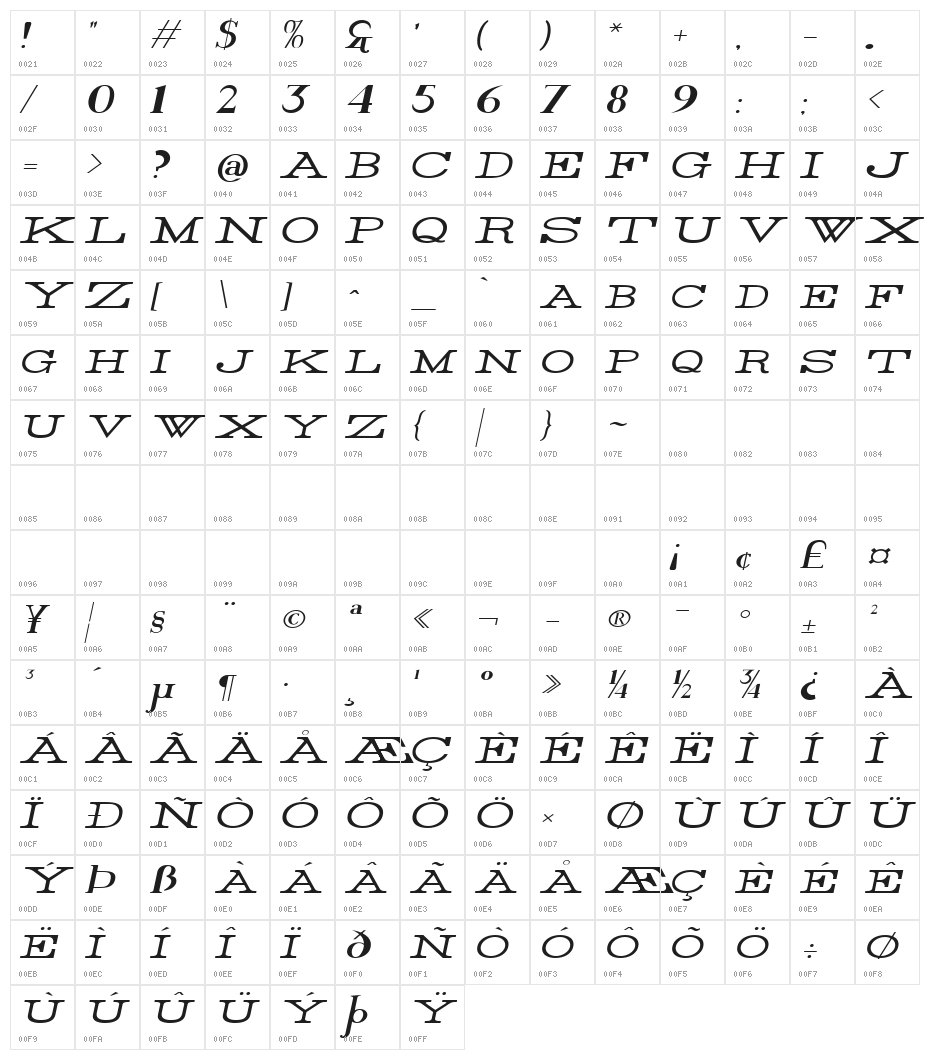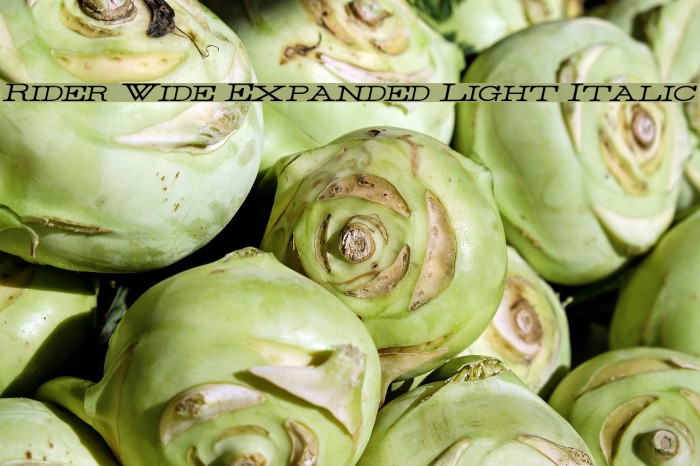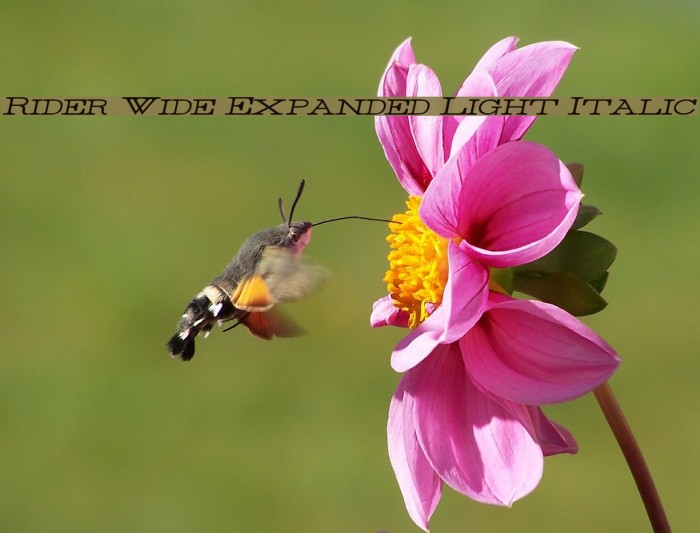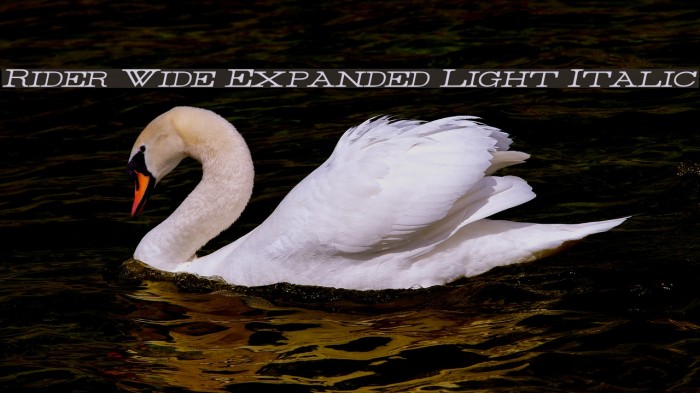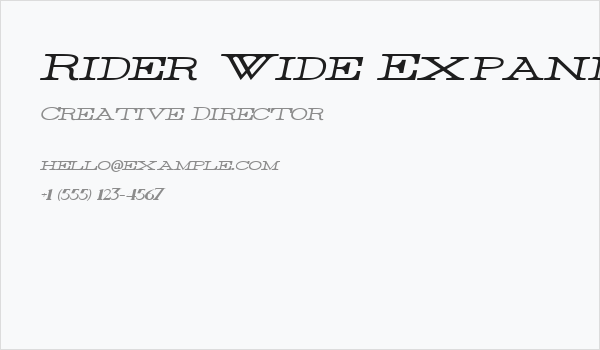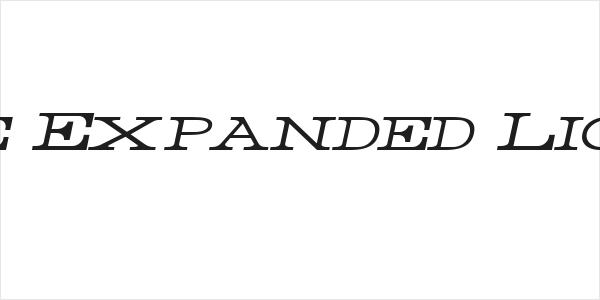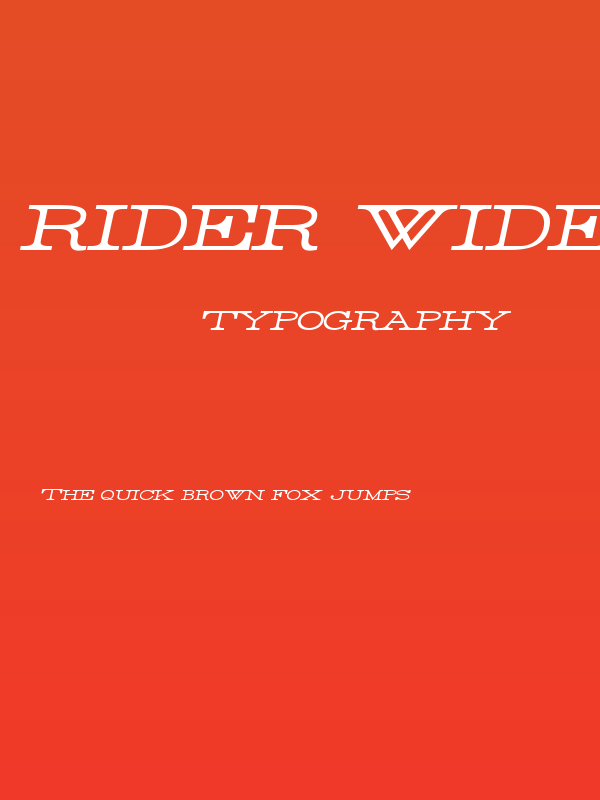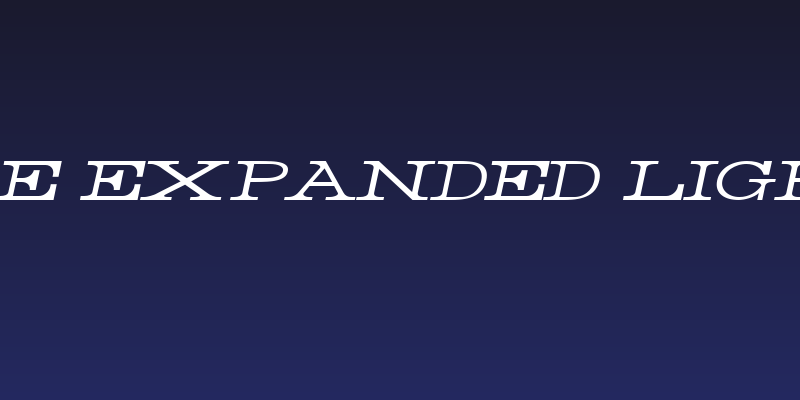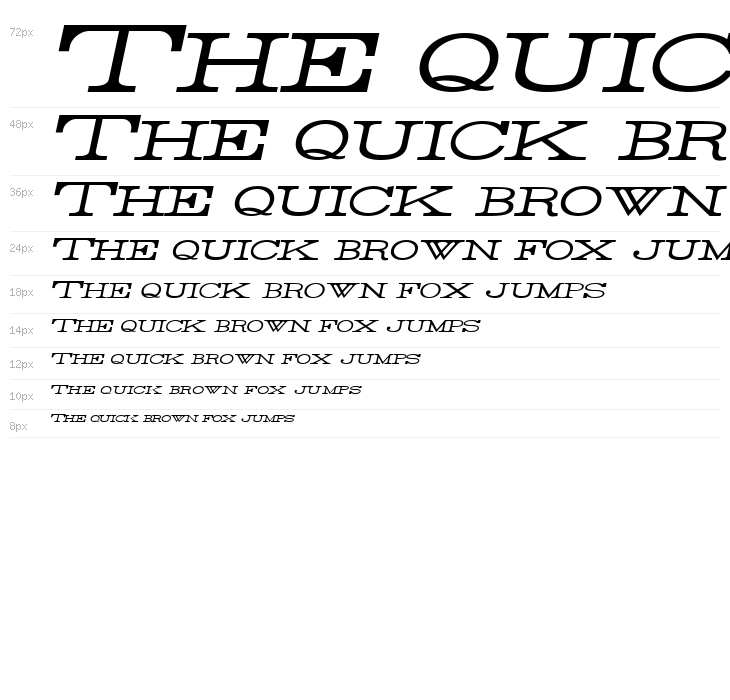
Rider Wide Expanded Light Italic Font
Rider Wide Expanded Light Italic Description
This font features a distinctive italic style with an expanded width, giving it a unique and elegant appearance. The characters are light in weight, contributing to a sleek and refined look. The serifs are pronounced, adding a touch of classic sophistication. The overall design is modern yet retains a timeless quality, making it versatile for various design applications. The numerals and special characters maintain the same stylistic elements, ensuring consistency throughout the typeface. The spacing between characters is normal, allowing for clear readability while maintaining the font's stylish flair.
| Proposed Projects | Ideal for use in fashion magazines, luxury branding, elegant invitations, and sophisticated advertising campaigns. |